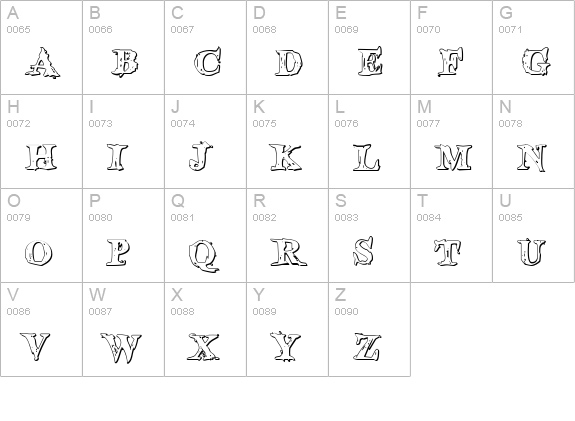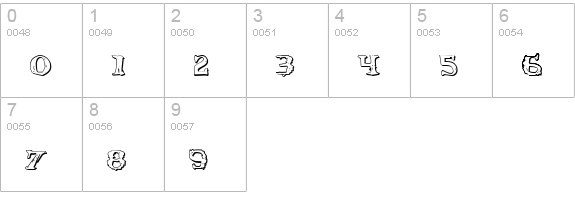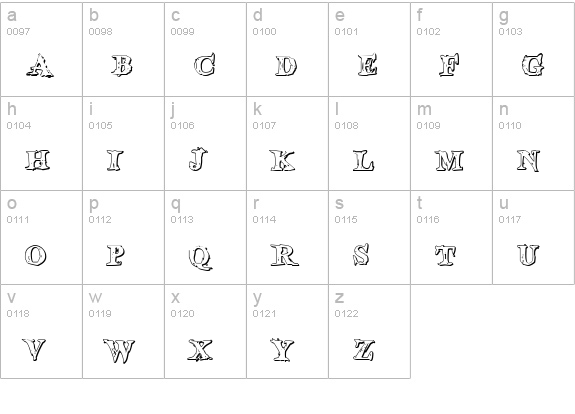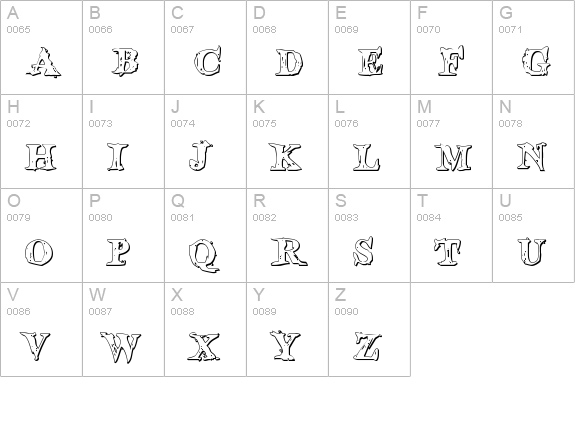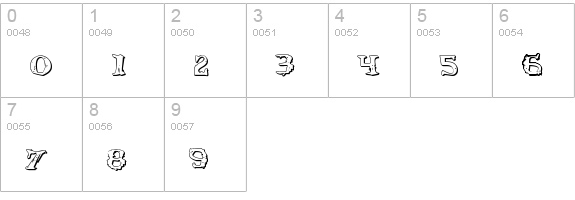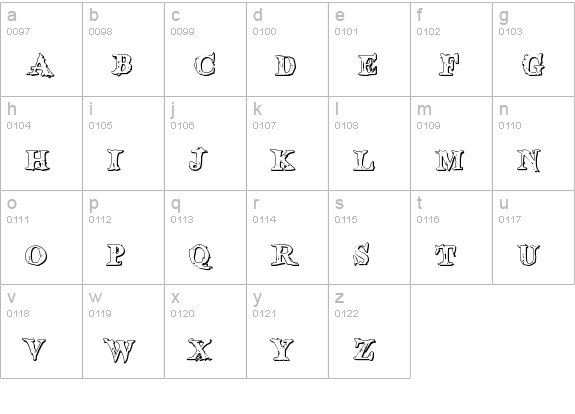
Introducing Blood Crow Shadow font, a striking display typeface that exudes a mysterious and edgy vibe. With its bold and dramatic letterforms, this font is perfect for creating eye-catching designs that demand attention. The unique shadow effect adds depth and dimension, making your text appear as if it's casting a shadow, adding a touch of intrigue to your projects. Best of all, Blood Crow Shadow font is available for free download at FontsMarket.com. Whether you're working on posters, logos, or any other design project that needs a touch of darkness and drama, this font is sure to make a bold statement. Download it today and unleash your creativity with this captivating typeface.